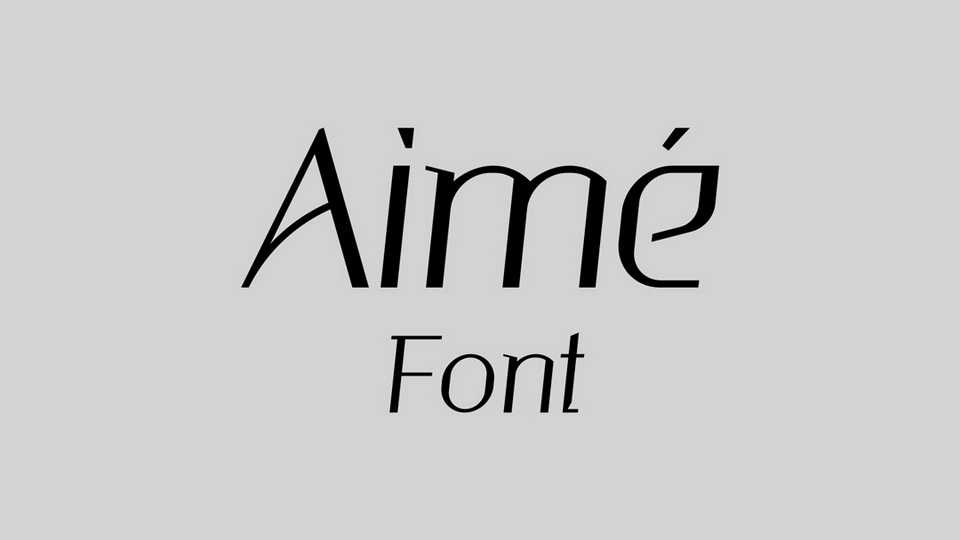
Download Aime MX font, a sans serif typeface that consists of two styles: regular and slanted. Aime MX typeface is designed with both full-width and half-width sharp/soft-curved lines.
Designer: Ariafar Khosravi